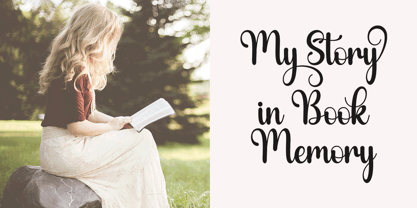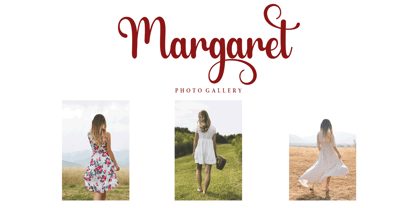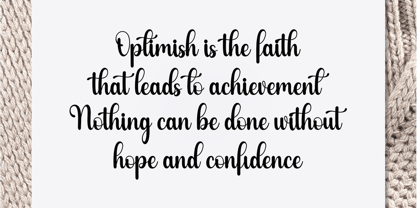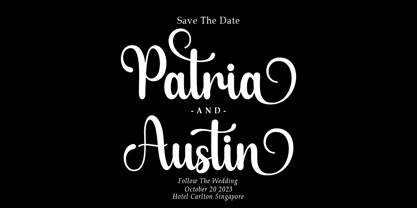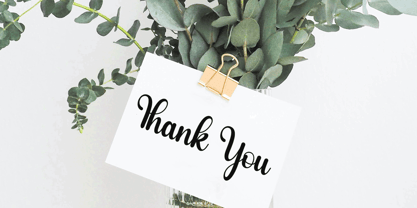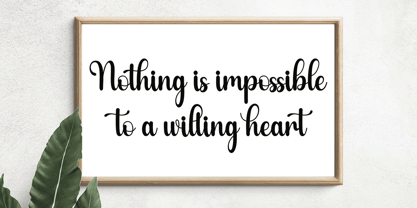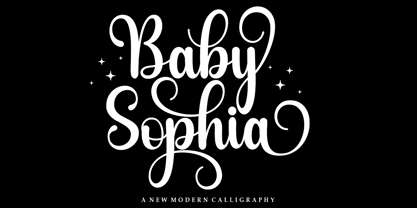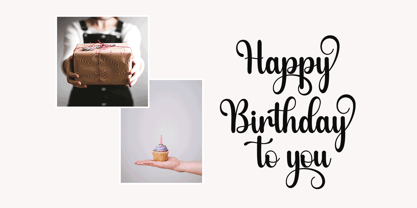
Baby Sophia
The Baby Sophia Font Family was designed by Agus Pujiyono and published by Good Design. Baby Sophia contains 1 styles. More about this family
Baby Sophia is a delicate, elegant and flowing handwritten font. It has beautiful and well balanced characters and as a result, it matches a wide pool of designs. Add it to your most creative ideas and notice how it makes them come alive! This font is PUA encoded which means you can access all of the cute glyphs and swashes with ease! It also features a wealth of special features including alternate glyphs and ligatures.